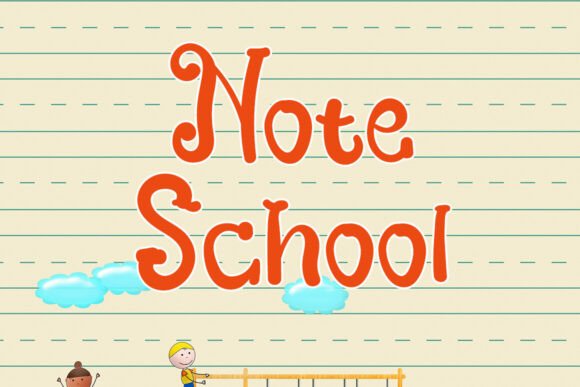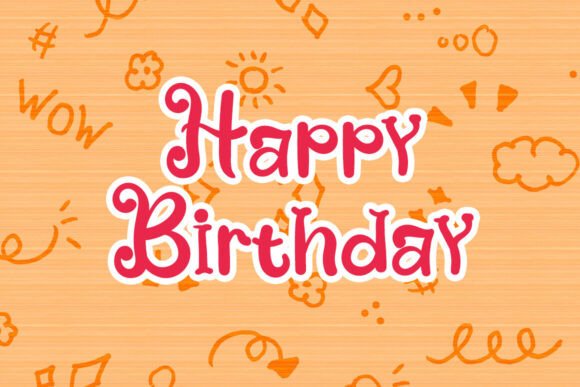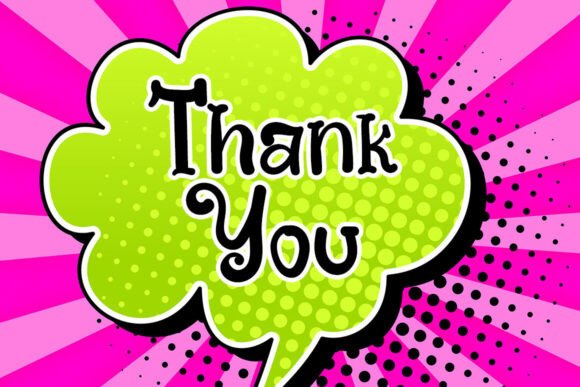
Introduction to Hello Marry Font
Experience the allure of pure aesthetics with the serene magnificence of this beautiful and sweet font.
Its freshness is unrivaled, embodying a clean, elegant disposition that breathes life into a myriad of projects, regardless of the formality spectrum It introduces an effervescent touch of joy, exuding a charm thatโs hard to resist, effortlessly amplifying the allure of your designs.
Key Features of Hello Marry Font